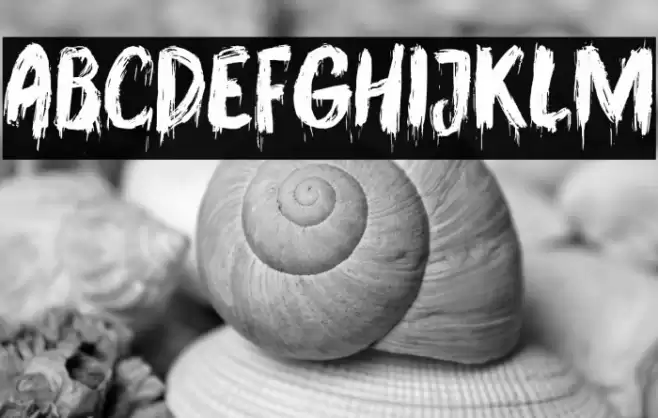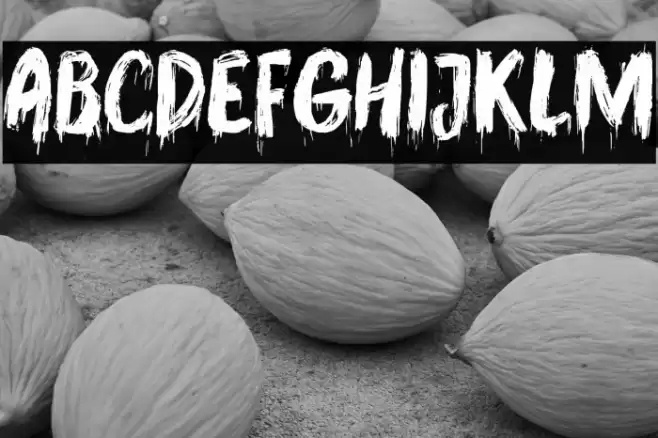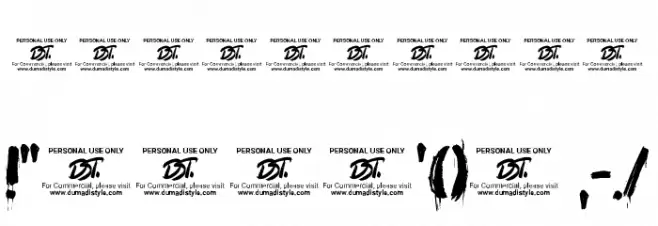
Buggy Trick Font
Buggy Trick Description
This font features a bold, brush-stroke style that exudes energy and dynamism. The characters are designed with a rough, textured appearance, reminiscent of graffiti or street art. Each letter has a unique, hand-drawn quality, with irregular edges and varying stroke thicknesses that add to its raw, expressive feel. The uppercase and lowercase letters maintain a consistent style, while the numbers and special characters complement the overall aesthetic. This font is ideal for projects that require a bold, artistic touch.
A bold, brush-stroke font with a raw, graffiti-like style from Uncategorized fonts.
- Font: Buggy Trick
- Proposed Projects: Perfect for street art designs, edgy posters, music album covers, and creative branding.
- Overall Style: Modern, Artistic